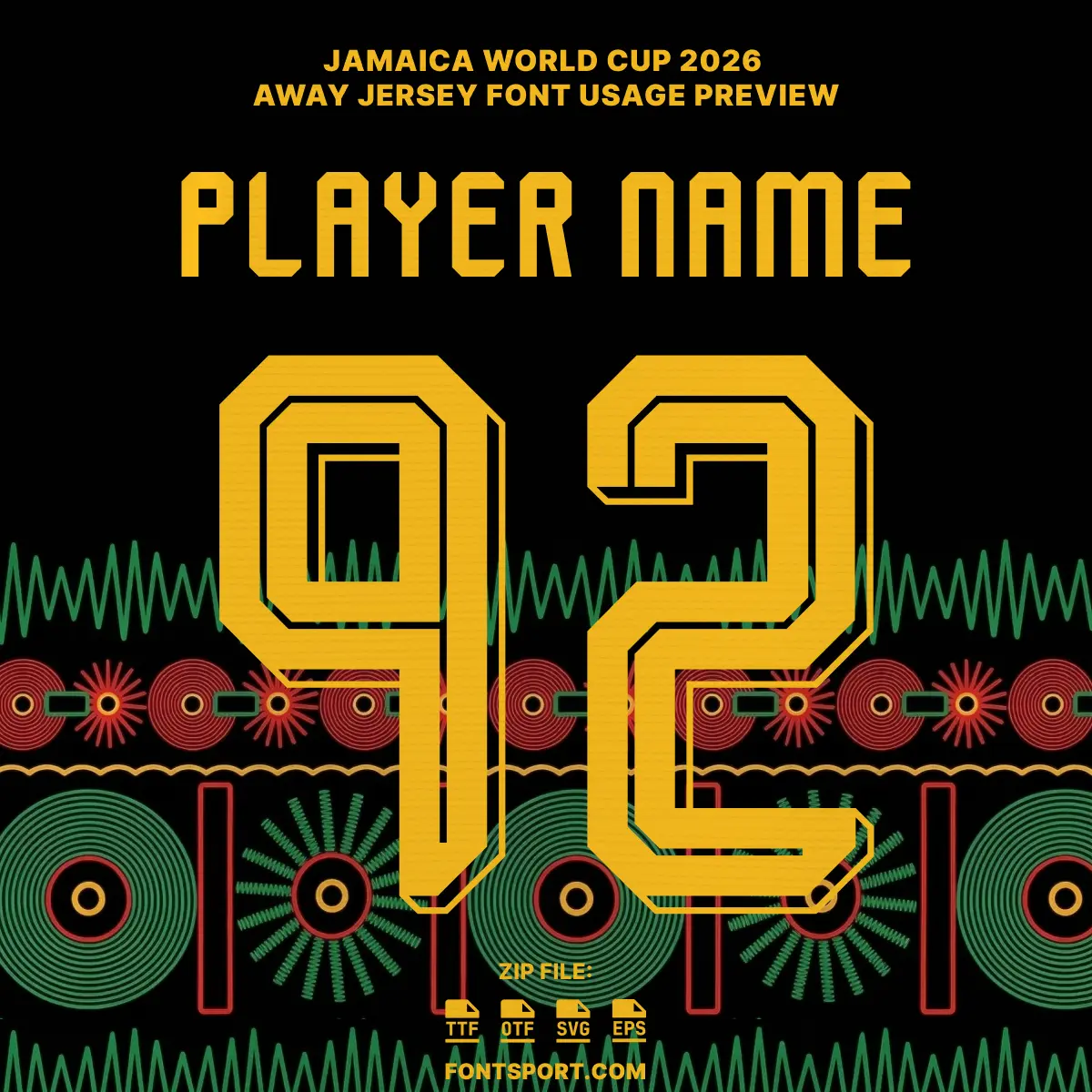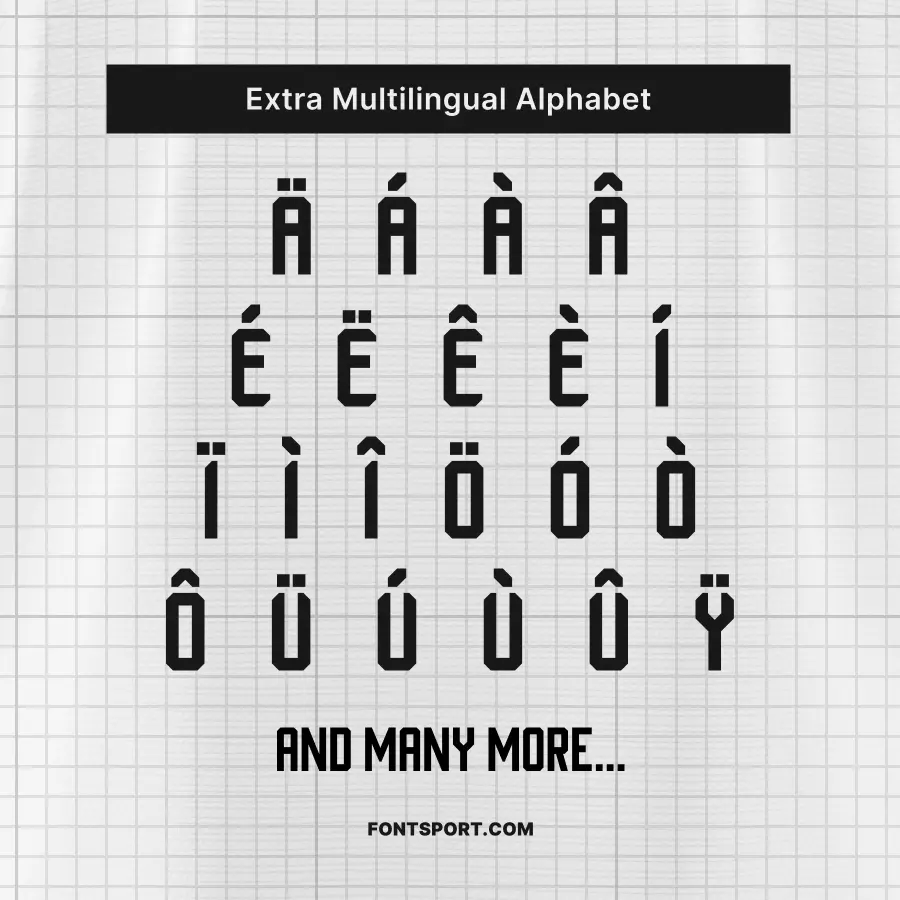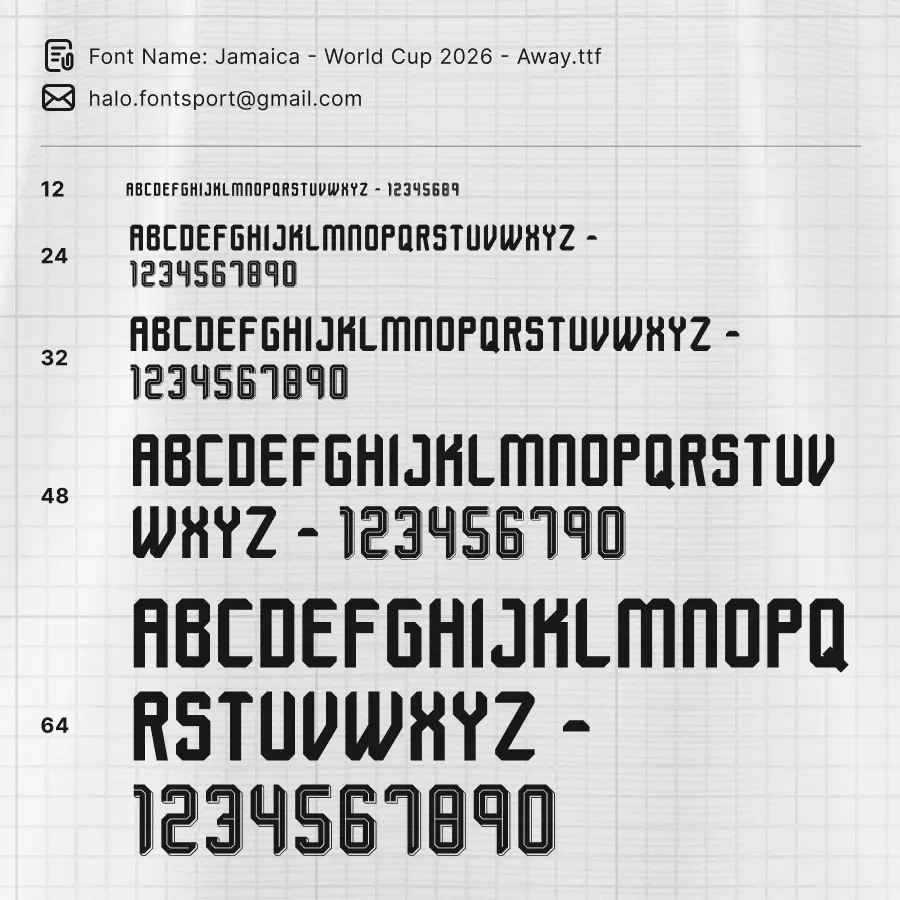
Jamaica World Cup Away 2026 Font Kit – Football Typeface
The Jamaica World Cup Away 2026 Font Kit brings the bold, rhythmic pulse of Jamaican music culture directly to your design projects. This font captures the “sound system” aesthetic of the upcoming tournament, featuring a unique 3D-shadow typography style that symbolizes the vibration of bass and the heartbeat of the island. Whether you are designing professional sports apparel or digital fan content, this kit provides a high-energy look that stands out on any platform.
• Complete Character Set: Features the full A–Z uppercase alphabet and a stylized, shadowed 0–9 number set designed for maximum visibility.
• Extra Multilingual Alphabet: Full support for accented characters (Ä, Á, È, Î, Ë, etc.), ensuring you can represent international player names with precision.
This bundle is ideal for creating personalized football kits, festive event posters, or unique lifestyle apparel that celebrates the spirit of the Reggae Boyz.
• Cultural Authority: The design reinterprets Jamaican sound wave patterns into a sleek, performance-ready typeface soccerbible
• Away Kit Inspiration: The official 2026 away jersey features a bold black base with a punchy graphic of circles and zigzags, referencing vinyl records and cassette reels—the visual language of the island’s music heritage. It prominently features the Adidas Trefoil logo and a “Tuff Gong” inspired typeface on the collar
Full character set of Jamaica World Cup 2026 Away font featuring yellow inline-style numbers 0-9 and A-Z alphabet on a black background with vibrant cultural patterns.